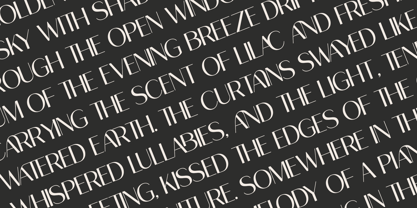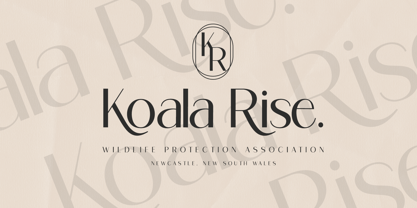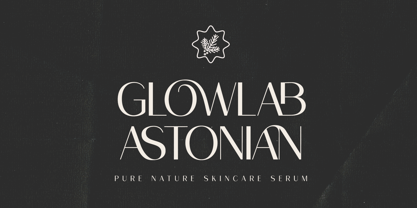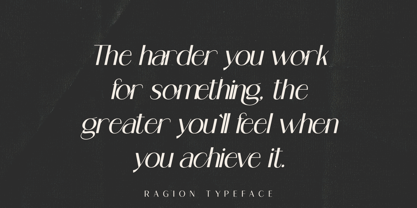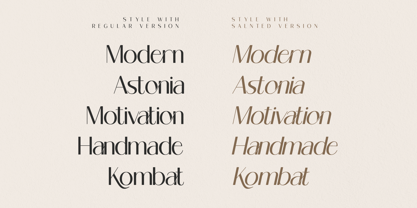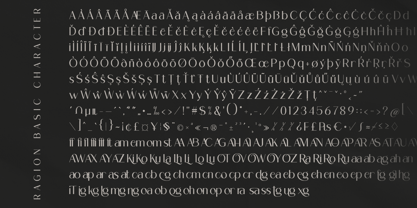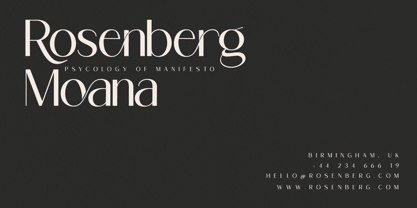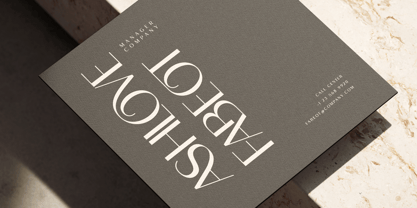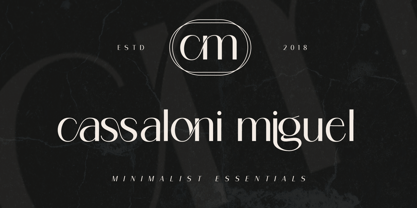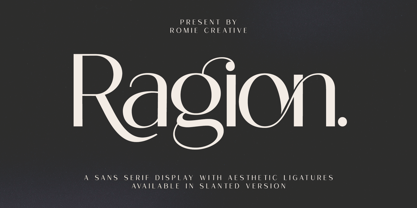
Ragion
by Romie Creative
The Ragion Font Family was designed by Romi Rahmadi and published by Romie Creative. Ragion contains 2 styles and family package options. More about this family
Ragion - Modern Sans Serif Font Hello, ladies and gentlemen! The latest stylish modern font has arrived, a font that many women and men are looking for. It's Brisca. Ragion is a modern and stylish sans serif font. With its modern design and ligature features, this font has become a favorite on the market. We've kept this font looking elegant, classy, ​​and stylish. Ragion is the perfect choice for cosmetics, beauty, brands, logos, wordmarks, magazines, designs, books, publications, branding, brand names, business cards, social media, classy designs, newspapers, branding, beauty, and other projects. Ragion is here to elevate the quality of your designs. Stay tuned for the latest information on font creation :) Features: • All Capital Letters • Binding • Multilingual Support • Numerics • Punctuation Thank You